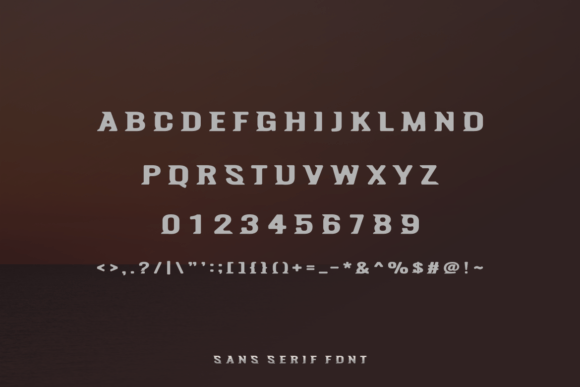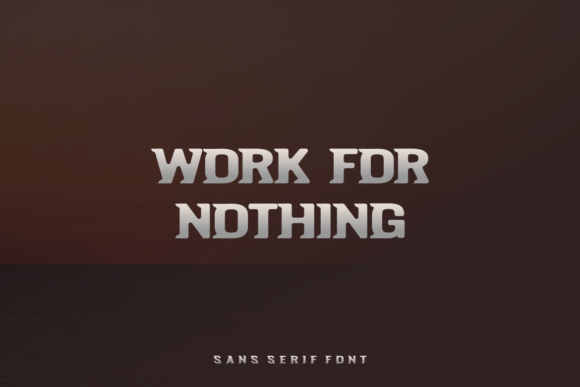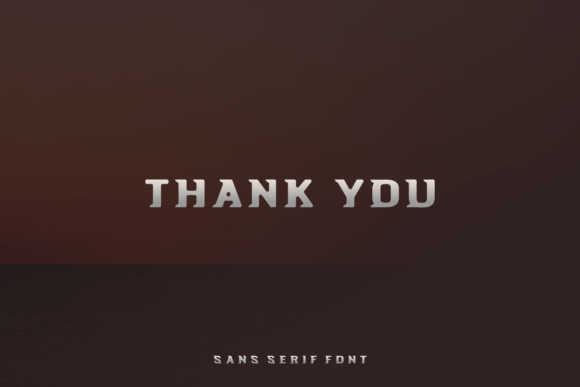
Introducing Blackrush Font: The Ultimate Modern Sans Serif Display Font
Are you tired of using the same old fonts for your designs? Look no further! Blackrush Font is here to revolutionize the way you create. This cool and modern sans serif display font is perfect for designers, crafters, and anyone looking to add a touch of trendiness to their work.
What is Blackrush Font?
Blackrush Font is a sleek and contemporary sans serif display font that is sure to make a statement. Its clean lines, precise curves, and perfect balance of bold and subtle features make it the ideal choice for a wide range of design projects. Whether you’re working on a digital design, crafting, presentation, or greeting card making, Blackrush Font is the perfect fit.
Features of Blackrush Font
- Modern and Trendy: Blackrush Font boasts a fresh and modern look that’s sure to capture the attention of your audience.
- Sans Serif: The clean and simple sans serif design makes it perfect for digital and print designs.
- Display Font: Blackrush Font is specifically designed as a display font, making it perfect for headlines, titles, and short text.
- Versatile: Use it for crafting, digital designing, presentations, greeting card making, and more!
Why Choose Blackrush Font?
With so many fonts available, why choose Blackrush Font? Here are just a few reasons:
- Unique and Eye-Catching: Blackrush Font is sure to make your designs stand out from the crowd.
- Easy to Read: Despite its bold and modern look, Blackrush Font is easy to read, even in smaller sizes.
- High-Quality: Blackrush Font is a high-quality font that’s designed to deliver exceptional results.
- Perfect for Designers and Crafters: Whether you’re a professional designer or a crafter, Blackrush Font is the perfect choice for your next project.
Uses of Blackrush Font
Blackrush Font is incredibly versatile and can be used for a wide range of design projects, including:
- Digital Designing: Use Blackrush Font to create stunning digital designs, including social media graphics, blog posts, and more.
- Crafting: Add a touch of modern style to your crafting projects, including cards, scrapbook pages, and more.
- Presentations: Make your presentations stand out with Blackrush Font, perfect for titles, headings, and bullet points.
- Greeting Card Making: Create beautiful and unique greeting cards with Blackrush Font.
Tips for Using Blackrush Font
Here are a few tips for getting the most out of Blackrush Font:
- Use it as a Display Font: Blackrush Font is specifically designed as a display font, so use it to make a statement.
- Experiment with Colors: Blackrush Font looks great in a range of colors, so don’t be afraid to experiment.
- Pair it with Other Fonts: Try pairing Blackrush Font with other fonts to create a unique and eye-catching look.
| Author | Izdihaar_Studio |
Blackrush Font is a cool and modern sans serif display font that’s perfect for designers, crafters, and anyone looking to add a touch of trendiness to their work. With its clean lines, precise curves, and perfect balance of bold and subtle features, it’s the ideal choice for a wide range of design projects. So why wait? Download Blackrush Font today and take your designs to the next level!